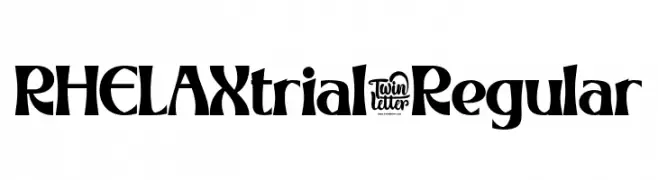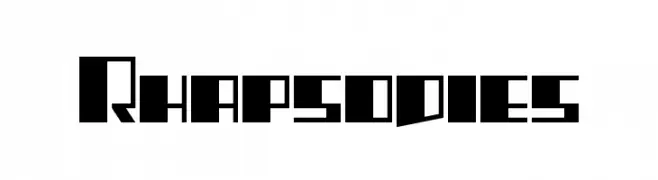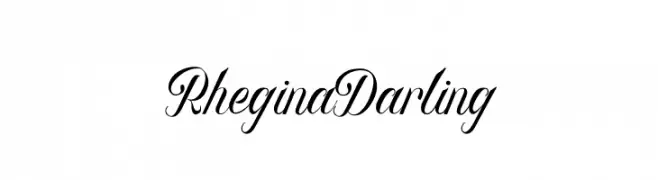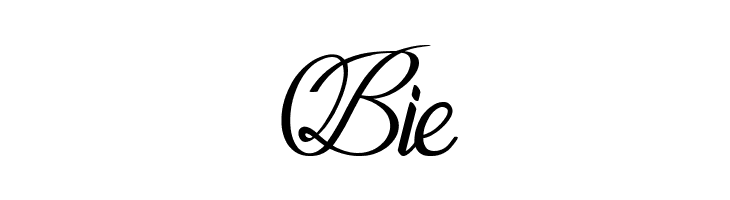
A sleek, modern font with an italic slant and consistent stroke width.
A dynamic and flowing script font with elegant cursive letterforms.
An ornate blackletter font with intricate detailing and dramatic flourishes.
A bold, decorative font with intricate line patterns for a striking, artistic look.
An elegant script font with flowing, ornate letterforms and intricate swashes.
A bold, geometric sans-serif font with a modern, minimalist design.
An elegant script font with intricate loops and flowing curves.
A bold, dynamic font with artistic flair and striking visual impact.